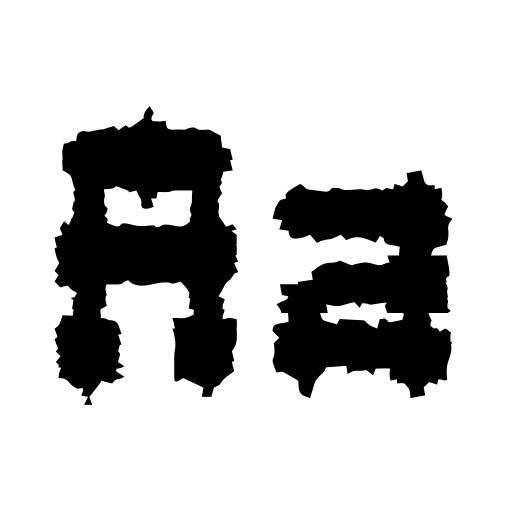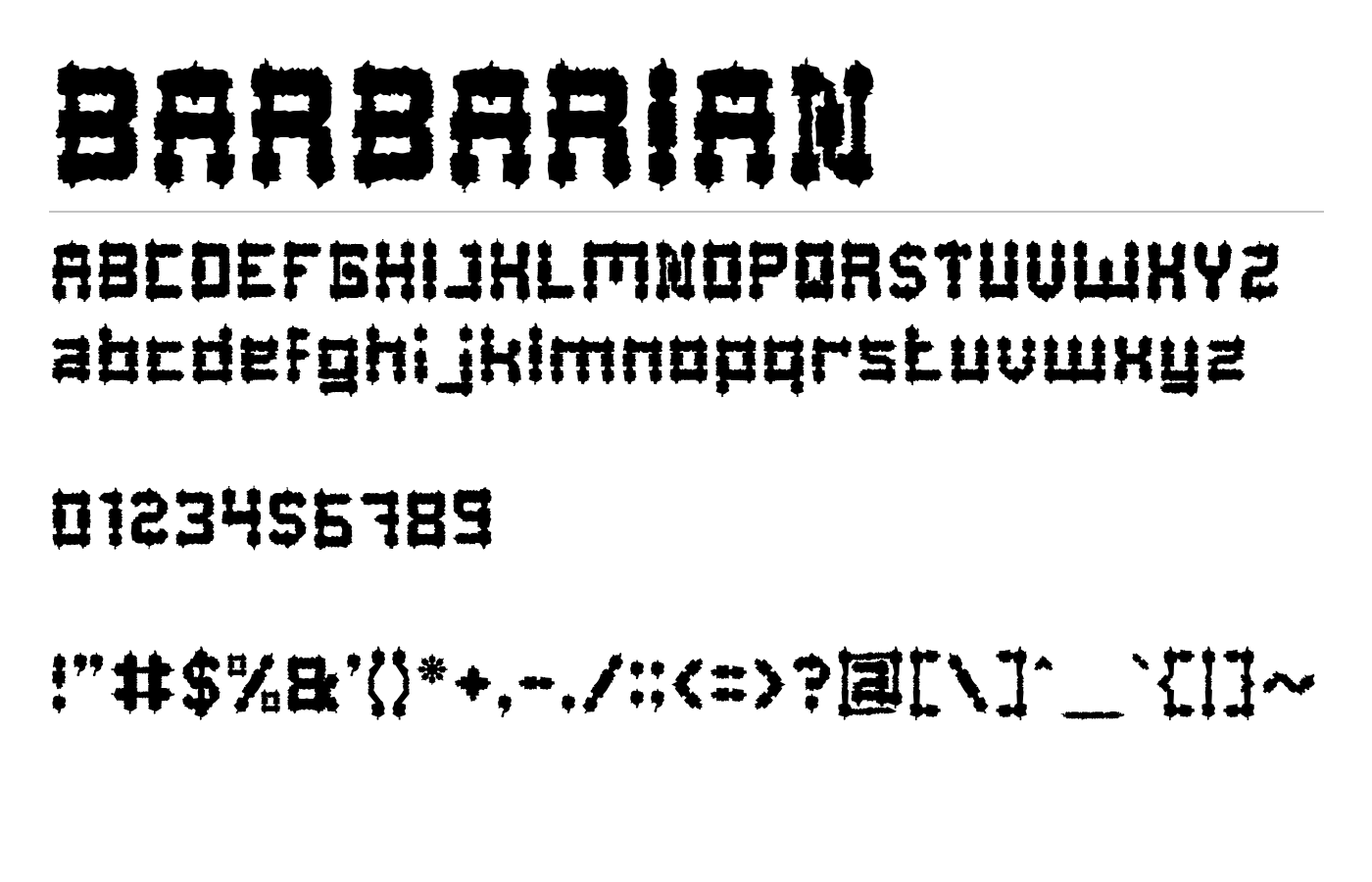
Barbarian is a bold, condensed sans serif font with a rough, distressed texture that gives it a rugged and edgy appearance. Its uneven strokes and blocky letterforms create a strong, commanding presence, making it ideal for attention-grabbing headlines, posters, or branding that aims to convey toughness and a raw, unpolished vibe. This font works best for creative projects in music, gaming, or extreme sports where a rebellious, gritty personality is desired.
BARBARIAN Font
About BARBARIAN Font
| Font family | BARBARIAN Font |